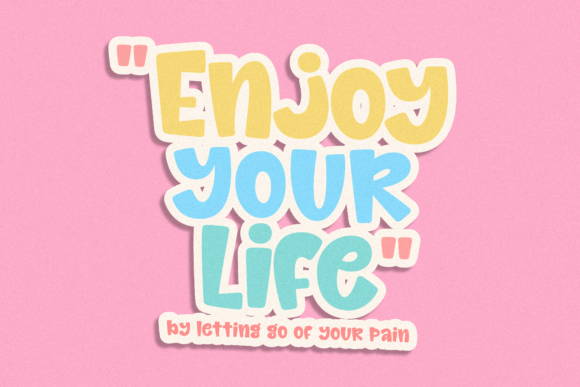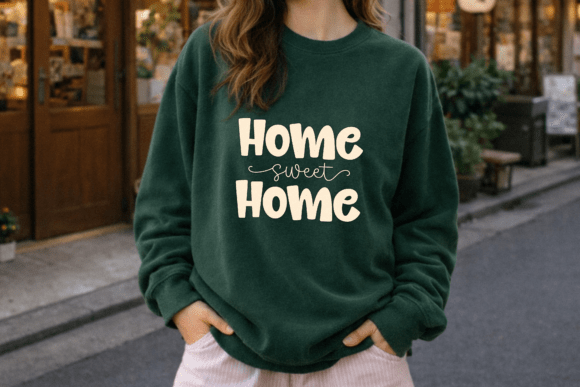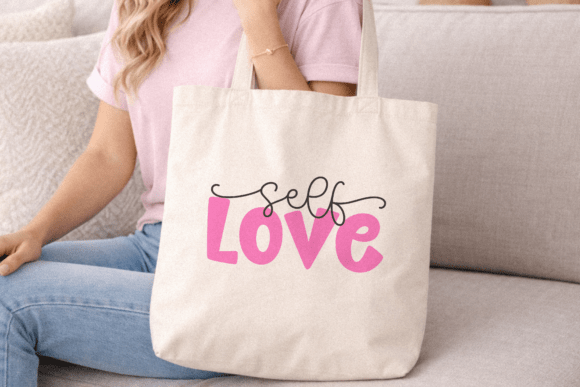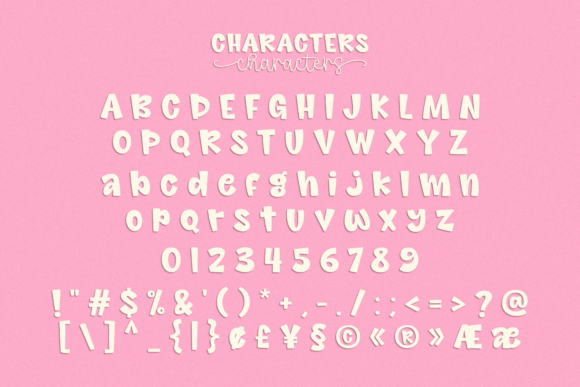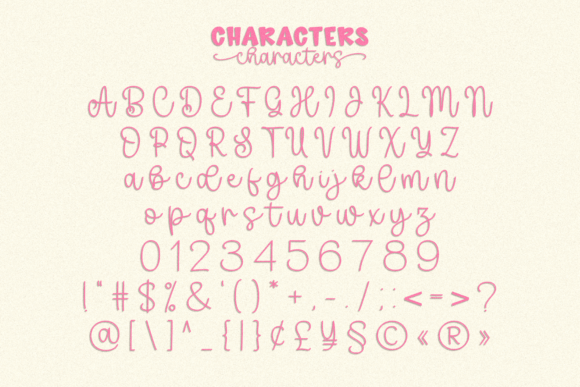
Introducing the Beautiful Smile Font: A Playful Handwritten Font Duo
Are you looking for a font that can add a touch of playfulness and friendliness to your designs? Look no further than the Beautiful Smile Font, a handwritten font duo that combines bold, rounded display lettering with a smooth, flowing script companion. This versatile typographic pairing is ideal for branding, packaging, invitations, and joyful design themes.
The Main Typeface: A Cheerful and Friendly Personality
The main typeface of the Beautiful Smile Font features chunky, soft-edged letterforms with gentle curves, subtle stroke variation, and a lively baseline. This creates a cheerful, friendly personality that is sure to capture the attention of your audience. The open counters and balanced proportions of the font ensure strong legibility, making it perfect for use in a variety of design applications.
The Script Style: Elegant Monoline Strokes and Expressive Swashes
Complementing the main typeface, the script style of the Beautiful Smile Font introduces elegant monoline strokes with natural rhythm, seamless connections, and expressive swashes. These swashes add movement and warmth to the font, creating a sense of fluidity and dynamism. The script style is perfect for adding a touch of elegance and sophistication to your designs.
A Harmonious and Versatile Typographic Pairing
Together, the contrast between the puffy, dimensional display and the graceful handwritten script creates a harmonious and versatile typographic pairing. This pairing is ideal for a wide range of design applications, including:
- Branding: Create a memorable and recognizable brand identity with the Beautiful Smile Font.
- Packaging: Add a touch of playfulness and friendliness to your packaging designs.
- Invitations: Create beautiful and elegant invitations for special occasions.
- Joyful design themes: Perfect for designs that require a cheerful and upbeat tone.
Key Features of the Beautiful Smile Font
The Beautiful Smile Font has several key features that make it a standout font duo:
- Playful and handwritten style
- Bold, rounded display lettering
- Smooth, flowing script companion
- Chunky, soft-edged letterforms with gentle curves
- Subtle stroke variation and lively baseline
- Open counters and balanced proportions for strong legibility
- Elegant monoline strokes with natural rhythm and seamless connections
- Expressive swashes that add movement and warmth
Why Choose the Beautiful Smile Font?
If you’re looking for a font that can add a touch of playfulness and friendliness to your designs, the Beautiful Smile Font is the perfect choice. Here are just a few reasons why:
- Unique and eye-catching design
- Versatile typographic pairing ideal for a wide range of design applications
- Strong legibility and easy to read
- Elegant and sophisticated script style
- Perfect for designs that require a cheerful and upbeat tone
In conclusion, the Beautiful Smile Font is a playful handwritten font duo that is perfect for designers and crafters looking to add a touch of playfulness and friendliness to their designs. With its bold, rounded display lettering and smooth, flowing script companion, this font duo is ideal for a wide range of design applications. Whether you’re creating a brand identity, packaging design, invitation, or joyful design theme, the Beautiful Smile Font is the perfect choice.